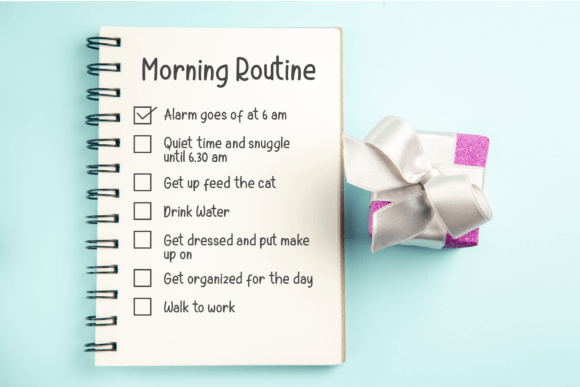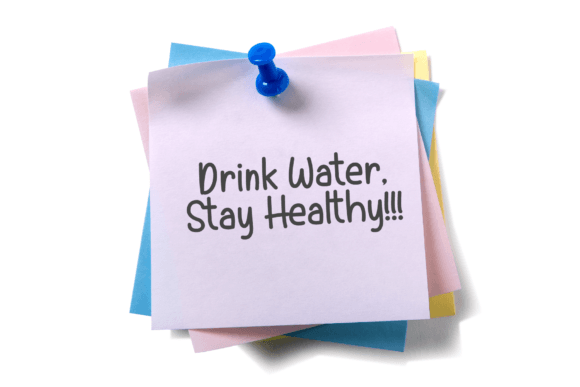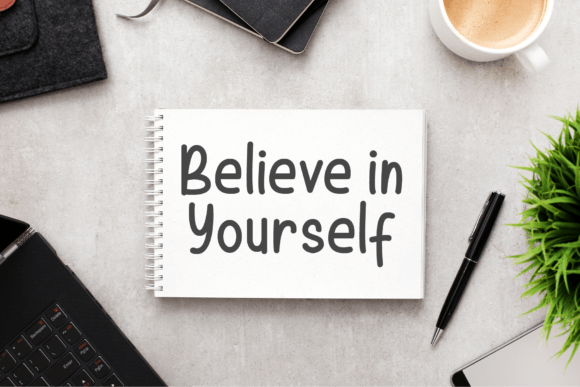
Introduction to Kantor Notes Font
Who among us hasn’t scribbled notes in a notebook as a child, only to look back at them years later and smile at the simplicity and charm of our younger selves? For designers, this nostalgia is a powerful creative spark. It’s a reminder that sometimes, the most effective designs are those that tap into our collective childhood memories and evoke a sense of wonder and curiosity.
Enter the Kantor Notes Font, a playful and endearing typeface that splendidly encapsulates a sense of casual cuteness, adding a playful touch to all your creative needs. Whether you’re crafting a nostalgic ‘back-to-school’ design, creating customized mugs or t-shirts, or working on a project that requires a lighthearted and approachable tone, this font is the perfect design resource.
Kantor Notes Font
- Includes a range of font styles and weights, providing flexibility for designers
- Designed to be highly legible at various resolutions and sizes, making it suitable for print and digital use
- Pixel-perfect at 300 DPI, ensuring crisp and clear typography in high-resolution designs
Honest Review: Kantor Notes Font
As a designer, I’m always on the lookout for high-quality fonts to elevate my creative projects. Recently, I stumbled upon the Kantor Notes Font, and I’m excited to share my thoughts on this design resource.
What works well: ✨ The Kantor Notes Font is a unique and stylish font that’s perfect for adding a touch of sophistication to your designs. The high-quality design and transparent background make it easy to use in a variety of creative projects, from branding to editorial work.
Some of the key features I appreciate include:
- Beautifully crafted letters and numbers
- Transparent background for easy use
- High-quality design suitable for print and digital projects
Overall, I’m impressed with the Kantor Notes Font, and I think it’s a great addition to any designer’s toolkit. Just be aware of the limitations, and use it wisely!
Kantor Notes Font
Tips for Getting the Most Out of Kantor Notes Font
To get the most out of the Kantor Notes Font, experiment with different font sizes, colors, and styles. Use the font in combination with other design elements to create a unique and visually appealing design.
The Kantor Notes Font is ideal for various creative projects, including:
- Presentations
- Documents